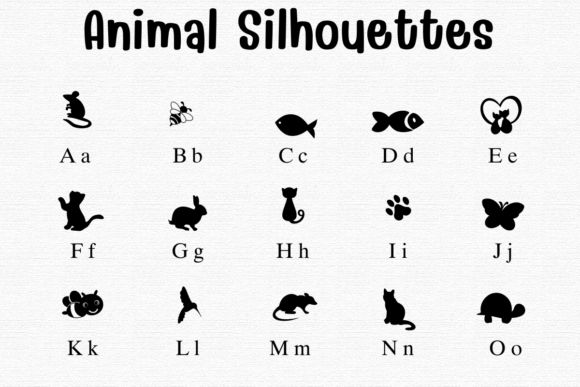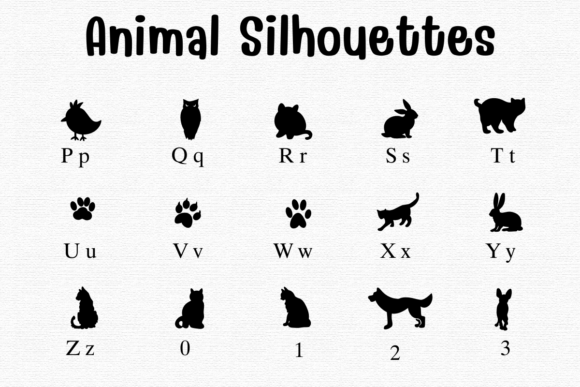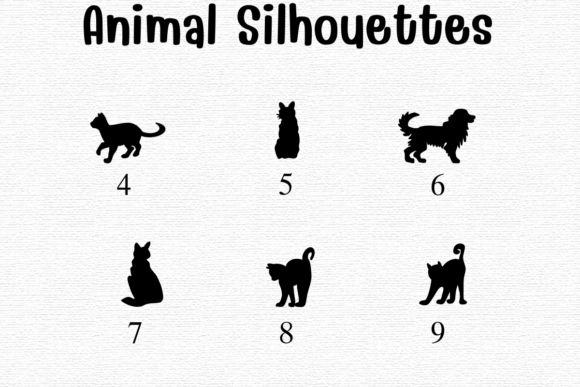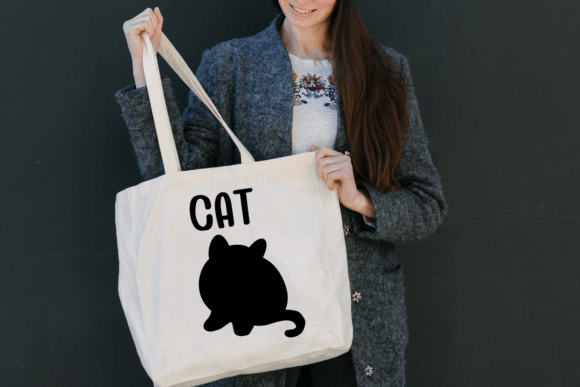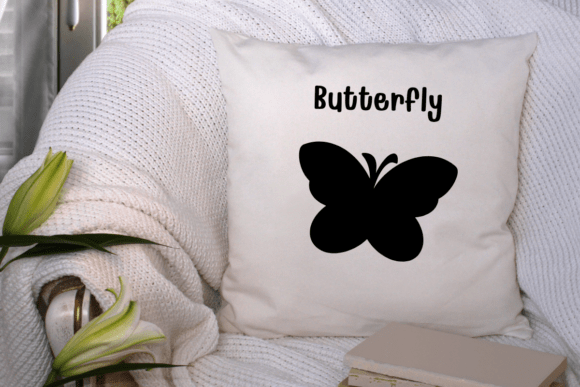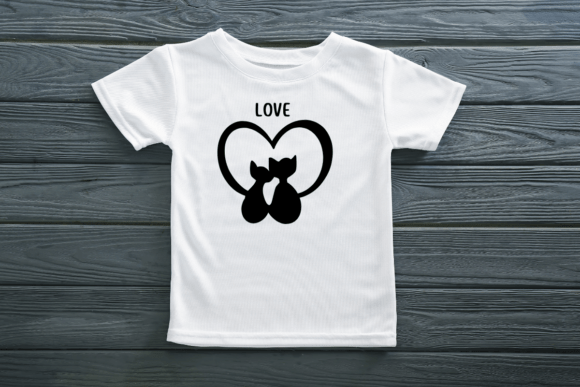
Have you ever been working on a project and suddenly, a cute illustration pops into your mind? Maybe it’s a playful monkey, a curious cat, or a happy bird. Whatever it is, it’s those little creative sparks that make our designs truly special. As designers, we’re always on the lookout for the perfect font to bring our ideas to life.
That’s where the Animal Silhouettes Font comes in – a delightful dingbats font featuring adorable silhouettes of animals, insects, birds, and paw prints. This versatile font is perfect for kids’ projects, pet-themed branding, wildlife designs, and educational materials. Whether you’re a seasoned designer or just starting out, the Animal Silhouettes Font is a valuable addition to your creative toolbox.
Key Features of Animal Silhouettes Font
- Size and Resolution: 200 glyphs, 16-bit resolution, and a 1000 x 1000 pixel grid, providing crisp and clear silhouettes.
- Unique Characteristics: The font features 24 animal silhouettes, each carefully designed to be recognizable and visually appealing, making it perfect for educational and creative projects.
- Scalability: The font is designed to be scalable, ensuring that the silhouettes remain clear and legible at various font sizes and resolutions.
Animal Silhouettes Font Review
As a designer, I was excited to dive into the world of Animal Silhouettes Font, a unique and quirky font that combines animal silhouettes with a playful twist. Overall, I’d say it’s a solid choice for projects that require a touch of whimsy.
- ✨ Unique blend of animal silhouettes and typography
- ✨ Wide range of animal options, from classic to more exotic creatures
- ✨ High-quality vector files for seamless scalability
- ⚠️ Limited flexibility in terms of customization and modification
- ⚠️ Some users may find the font’s playful vibe too childish for certain projects
- ⚠️ Limited support for multilingual text and special characters
In conclusion, Animal Silhouettes Font is a charming addition to any designer’s toolkit. While it may have some limitations, its unique charm and versatility make it a great choice for projects that require a touch of personality. Just be sure to consider the project’s tone and audience before making your decision.
Experiment with different colors and backgrounds to create visually appealing designs. Use the silhouettes as a starting point and add additional design elements to enhance your message. Consider using the silhouettes in a series to create a cohesive and engaging visual story.
Use the Animal Silhouettes font in educational materials, such as textbooks and presentations, to teach children about different animal species. Use it in marketing materials, such as brochures and posters, to highlight a company’s commitment to animal conservation. Use it in social media graphics and websites to add a playful and engaging touch to your content.